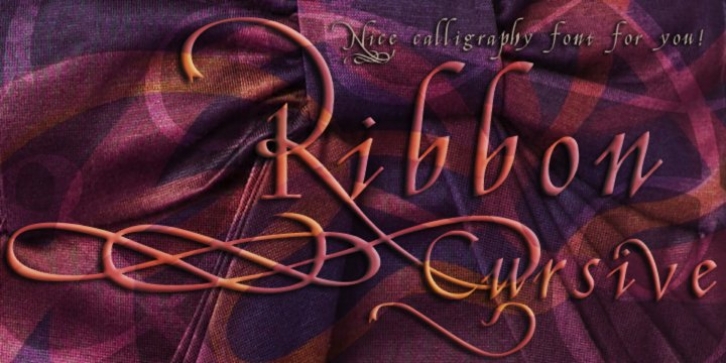
Ribbon Cursive was developed largely from Mercator’s Italic Hand, which originated from Italy, during the Renaissance.
Ribbon Cursive is fancy, legible, and luxurious text. Works great if you are designing a logo, or use it to create some beautiful titling. Use it for advertisement copy, or even for short to medium-length bodies of text.
It should be noted that, due to the heavy embellishment of all the capital letters, this font will not work well if your text is set in all capitals!
Ribbon Cursive is contains the full West European diacritics and a full set of ligatures, making it suitable for multilingual environments and publications.